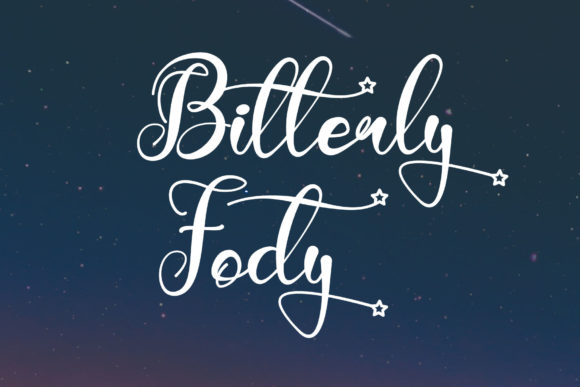
Introducing Bitterly Fody Font - A Timeless Masterpiece for Your Creative Endeavors
In the world of typography, there are fonts that simply captivate the eye, leaving an indelible mark on the hearts of designers and creatives alike. Bitterly Fody Font stands tall among these exceptional creations, a script font that exudes elegance, charm, and a touch of nostalgia. Its meticulously crafted curves and impeccable balance evoke a sense of timeless beauty, making it the perfect choice for those seeking a font that speaks volumes without uttering a single word.
Bitterly Fody Font's lineage can be traced back to the golden age of script fonts, where the written word was transformed into an art form. Its graceful strokes and sweeping flourishes are reminiscent of handwritten love letters, vintage posters, and the alluring charm of yesteryears. Yet, it is far from being a relic of the past. Bitterly Fody Font seamlessly blends classical aesthetics with modern functionality, making it a versatile tool for contemporary design projects.
Whether you're a seasoned designer or just starting your creative journey, Bitterly Fody Font has something to offer. Its user-friendly PUA encoding allows for effortless access to a treasure trove of glyphs and swashes, empowering you to unleash your creativity and add a touch of uniqueness to your designs.
With Bitterly Fody Font as your creative companion, you'll find yourself effortlessly crafting designs that resonate with your audience. Its warm and inviting personality makes it ideal for branding projects that aim to establish a personal connection with customers. Its vintage charm adds a touch of sophistication to editorial designs, while its versatility extends to invitations, wedding stationery, and social media graphics.
But Bitterly Fody Font's allure extends beyond its aesthetic appeal. It is a font that evokes emotions, stirring the heart and capturing the imagination. Its graceful curves invite readers to linger, savoring every word as if it were a sip of fine wine. Its carefully chosen letterforms create a visual rhythm that draws the eye across the page, creating a captivating reading experience.
In a world where fonts often blend into the background, Bitterly Fody Font stands out as a true protagonist. It commands attention without overpowering the content, making it the perfect choice for designers who value both aesthetics and functionality. Its timeless beauty transcends trends, ensuring that your designs remain relevant and captivating for years to come.